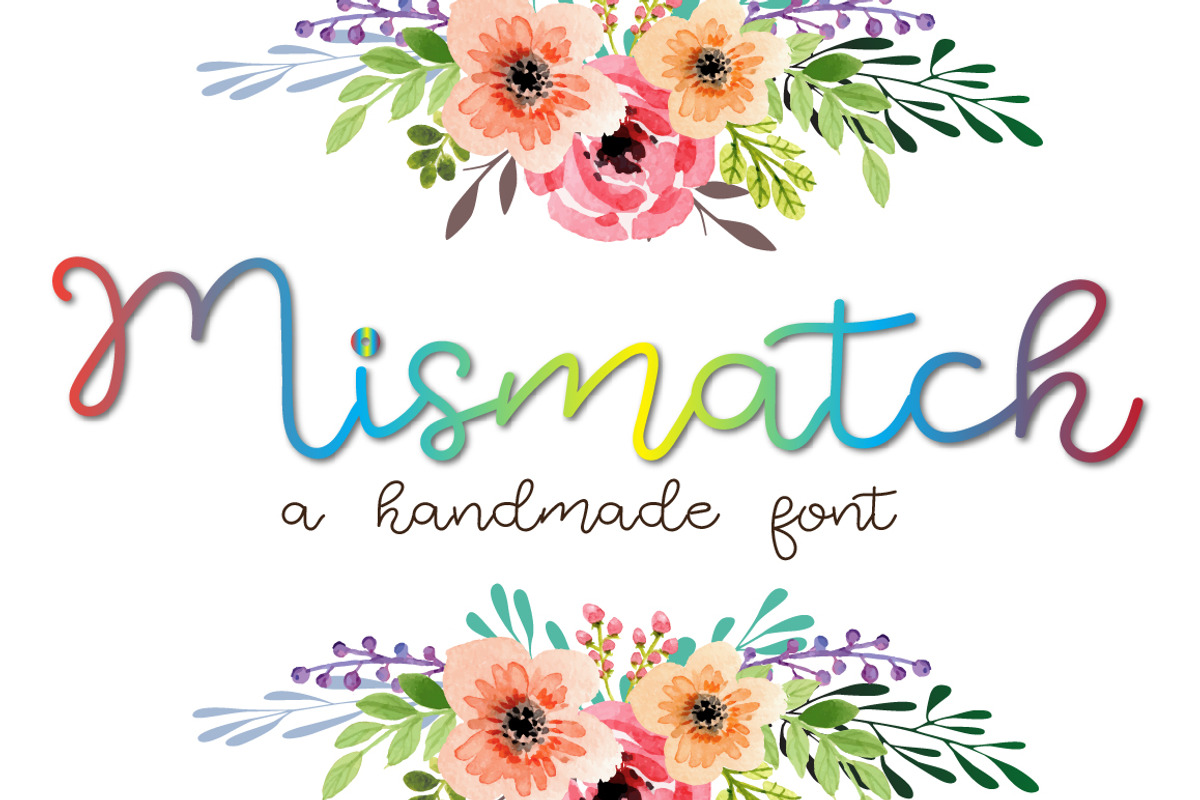
Mismatch - Cool classy elegant font
Mismatch is modern script font, every single letters have been carefully crafted to make your text looks beautiful. With modern script style this font will perfect for many different project ex: quotes, blog header, poster, wedding, branding, logo, fashion, apparel, letter, invitation, stationery, etc.
Mismatch - Cool classy elegant font by Zmapist fits naturally into Branding, posters, packaging, typography.